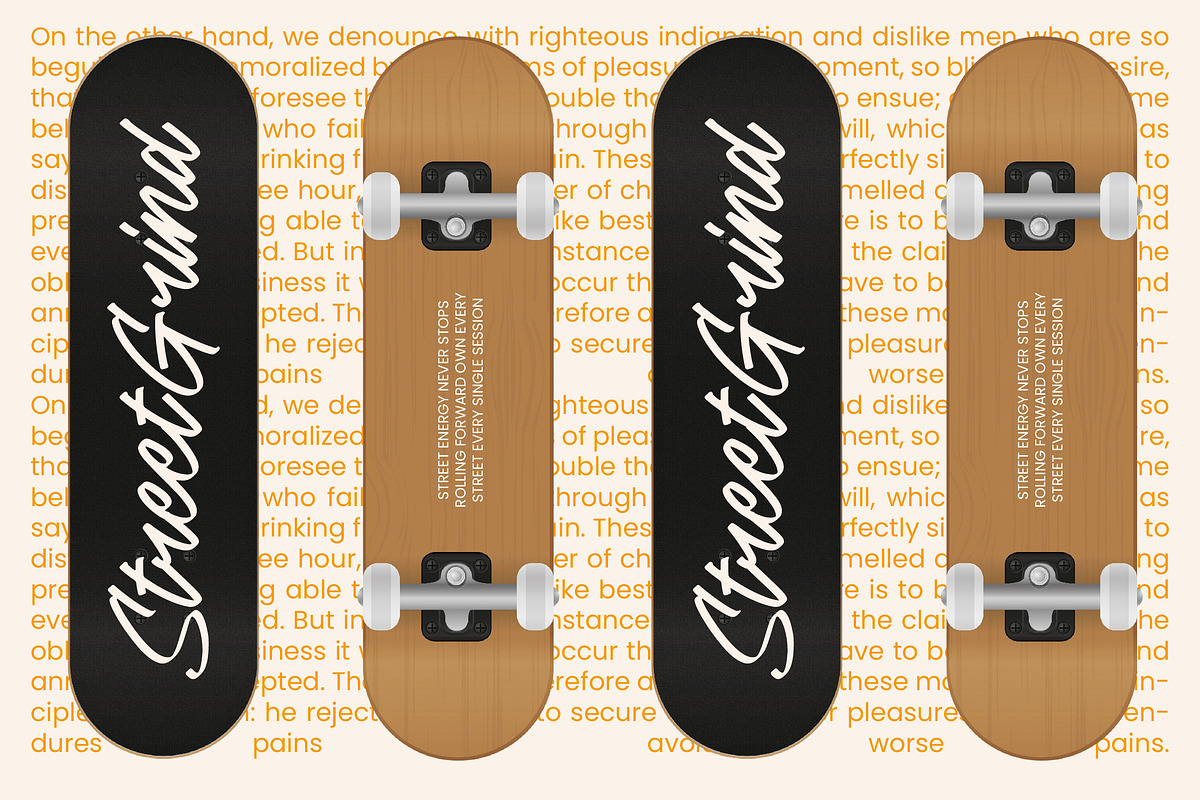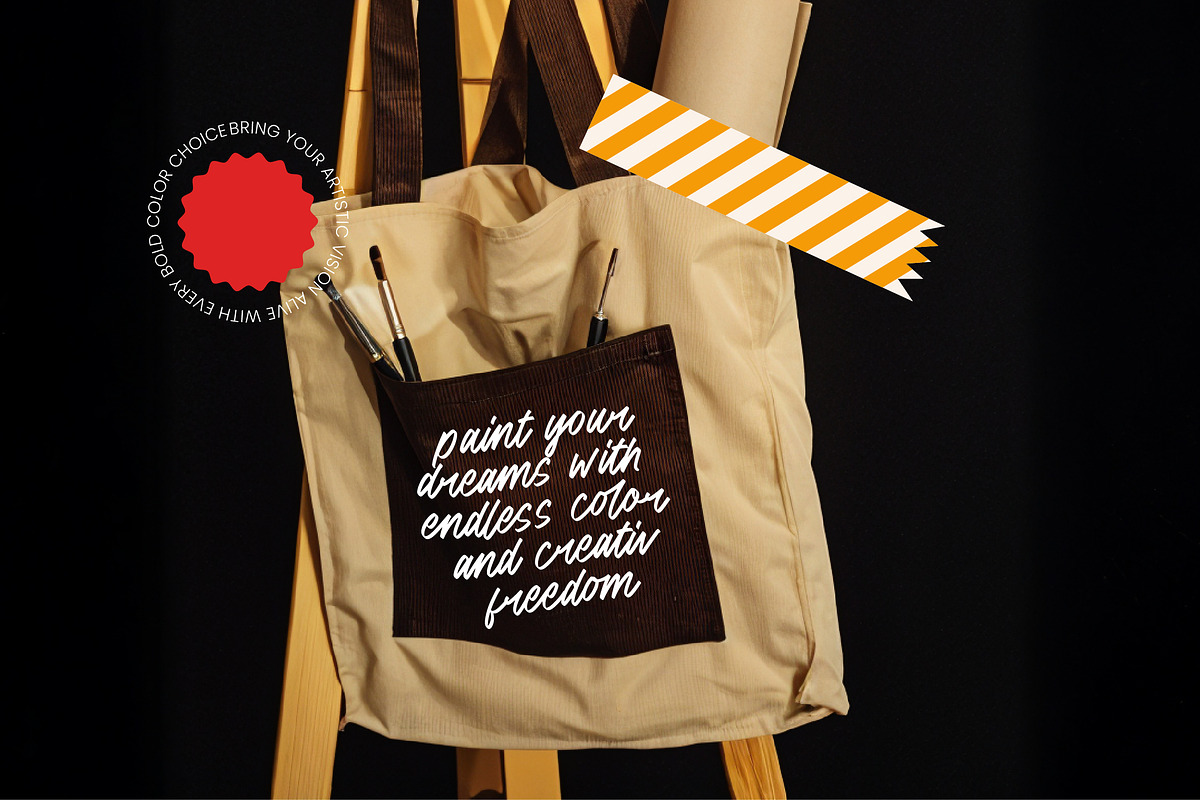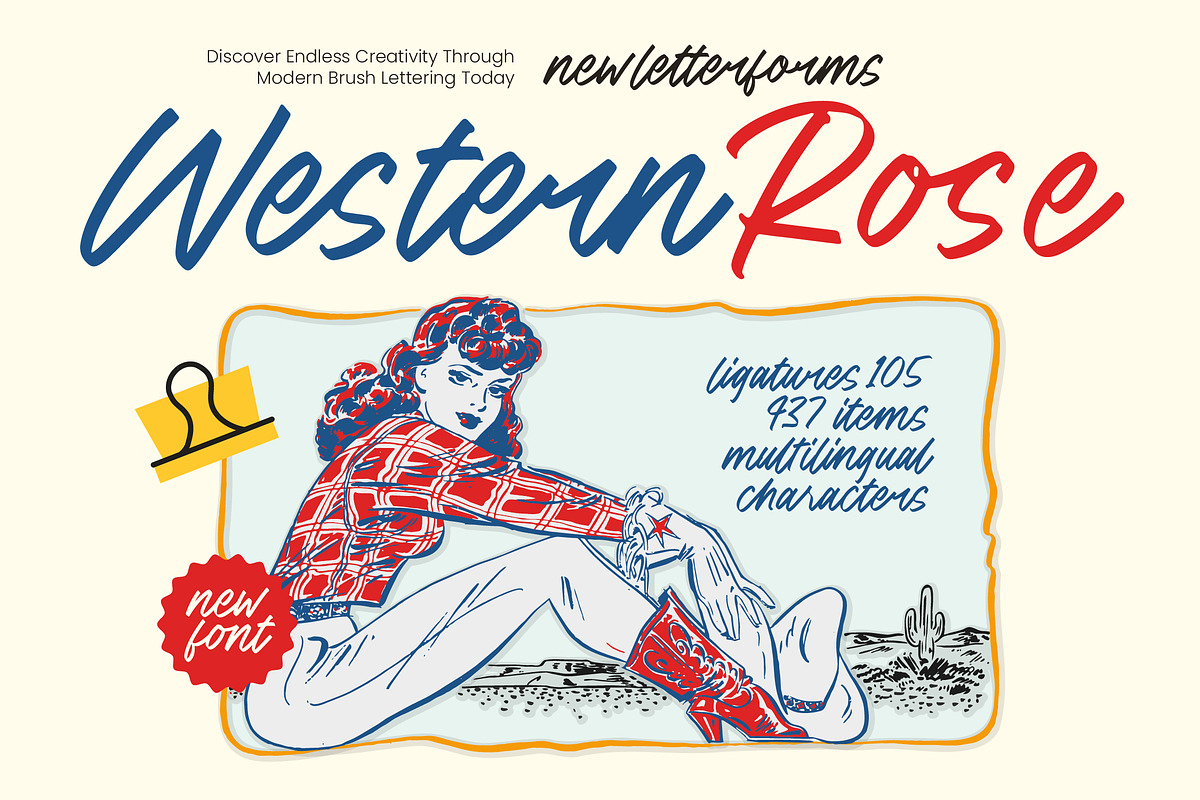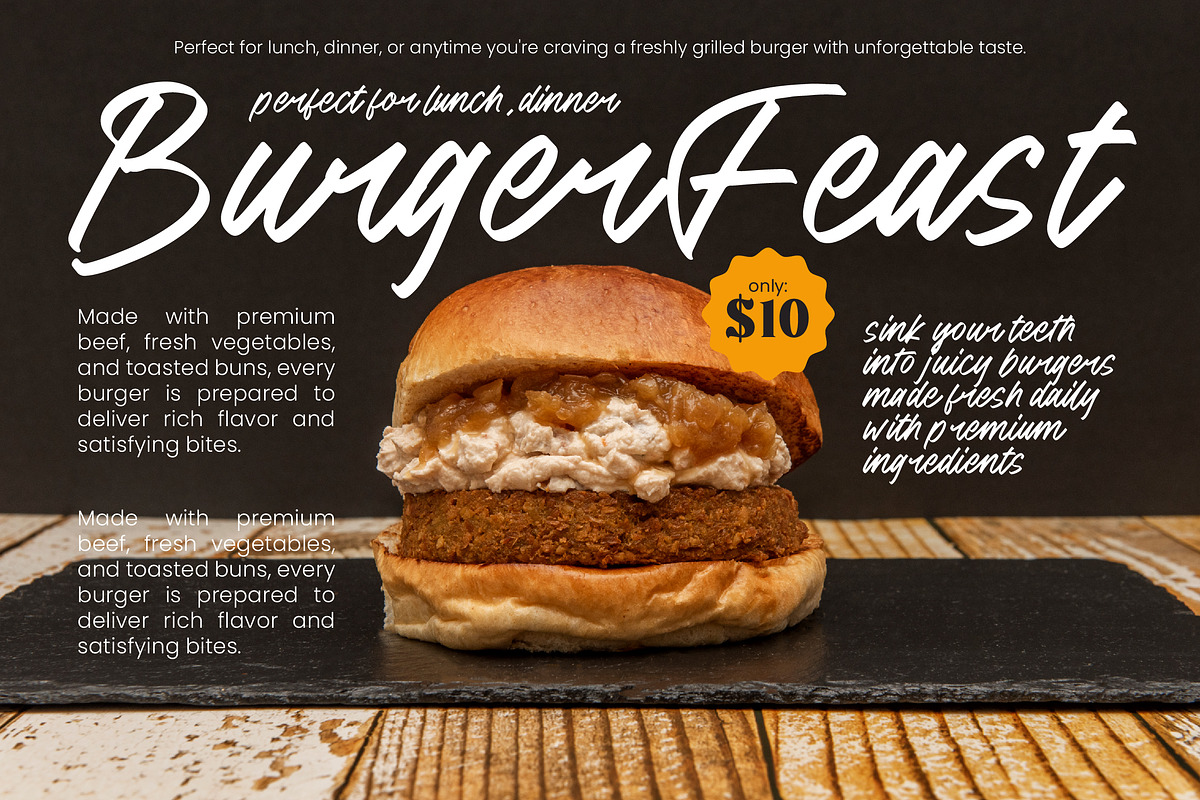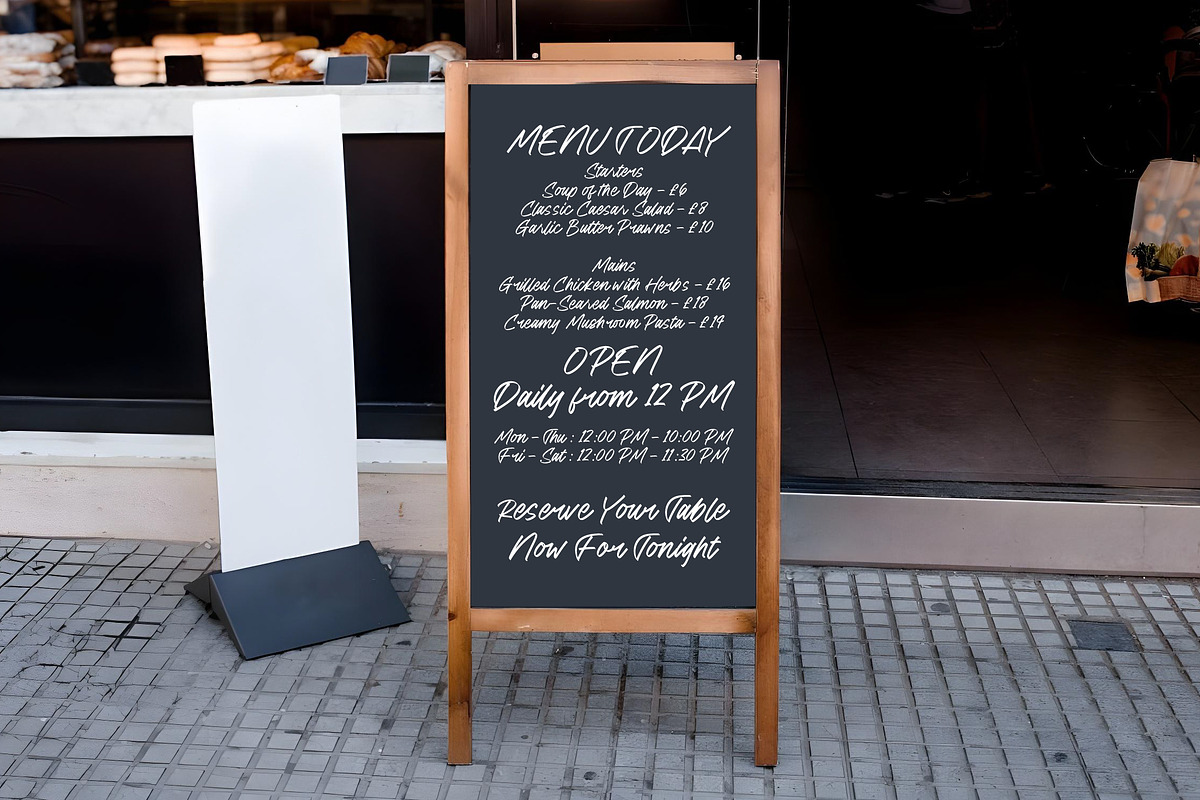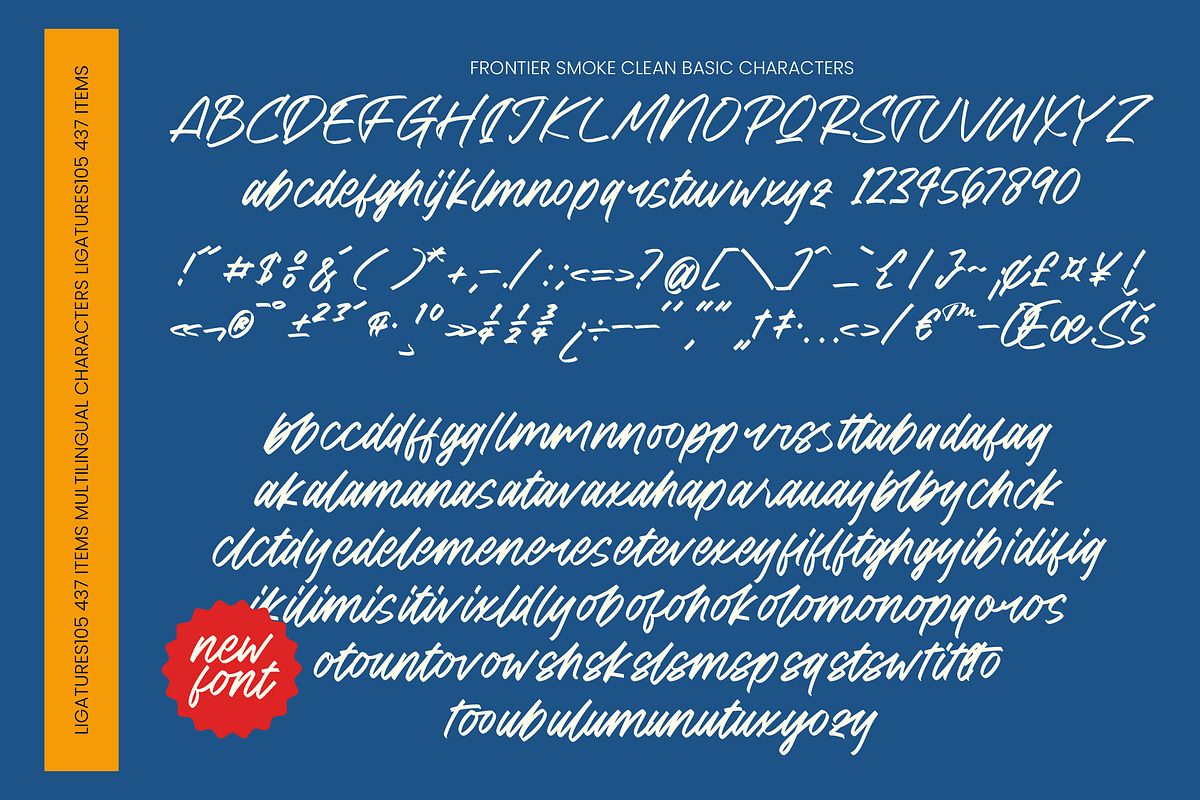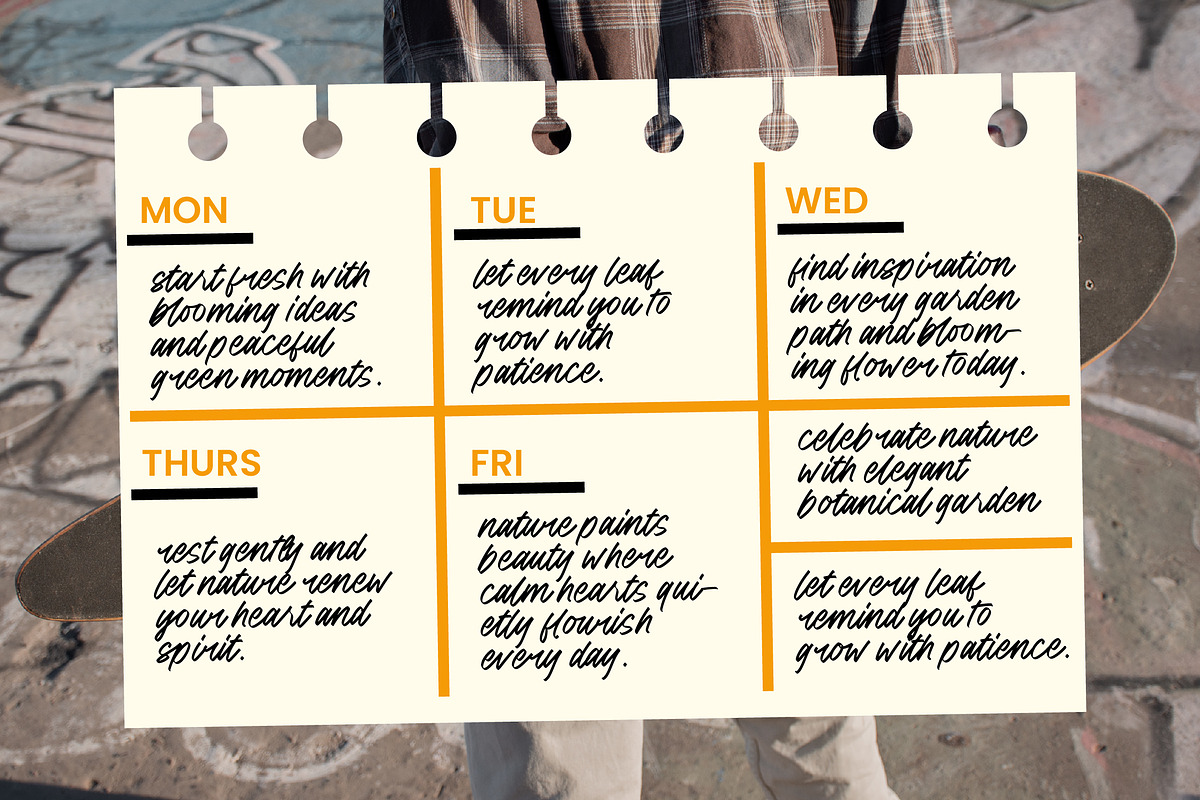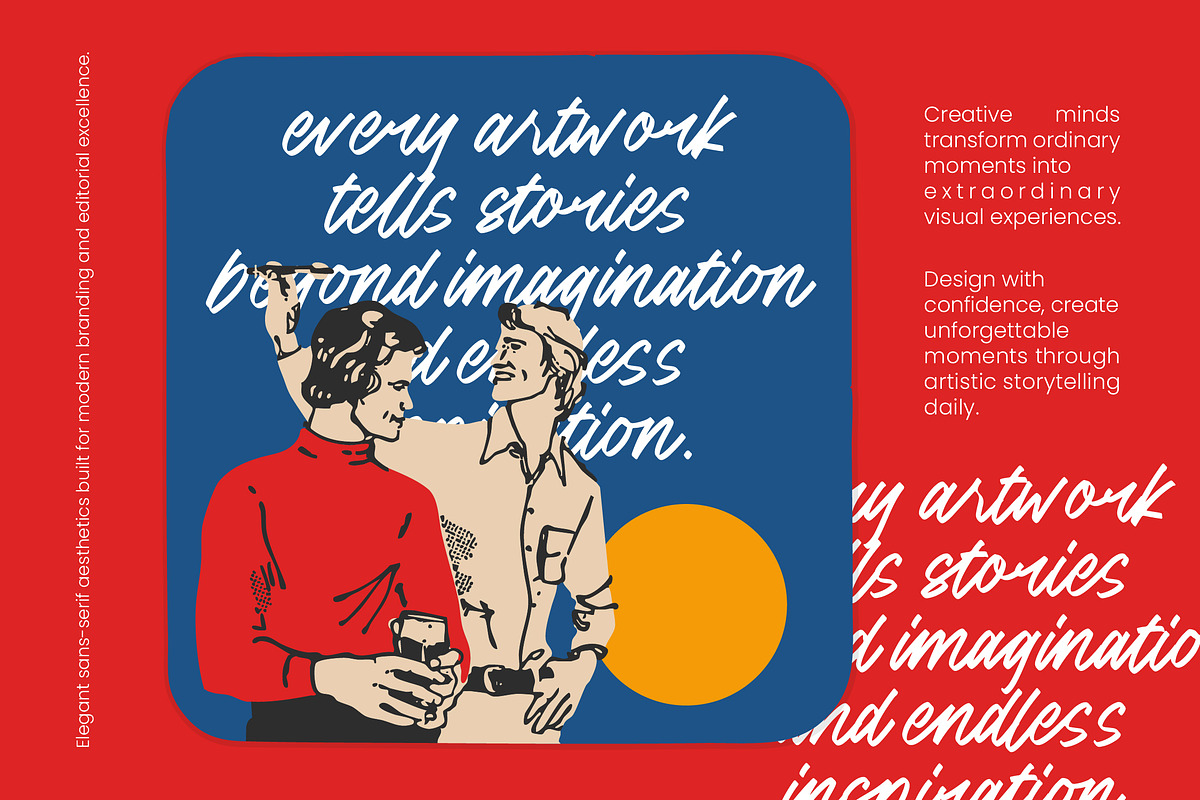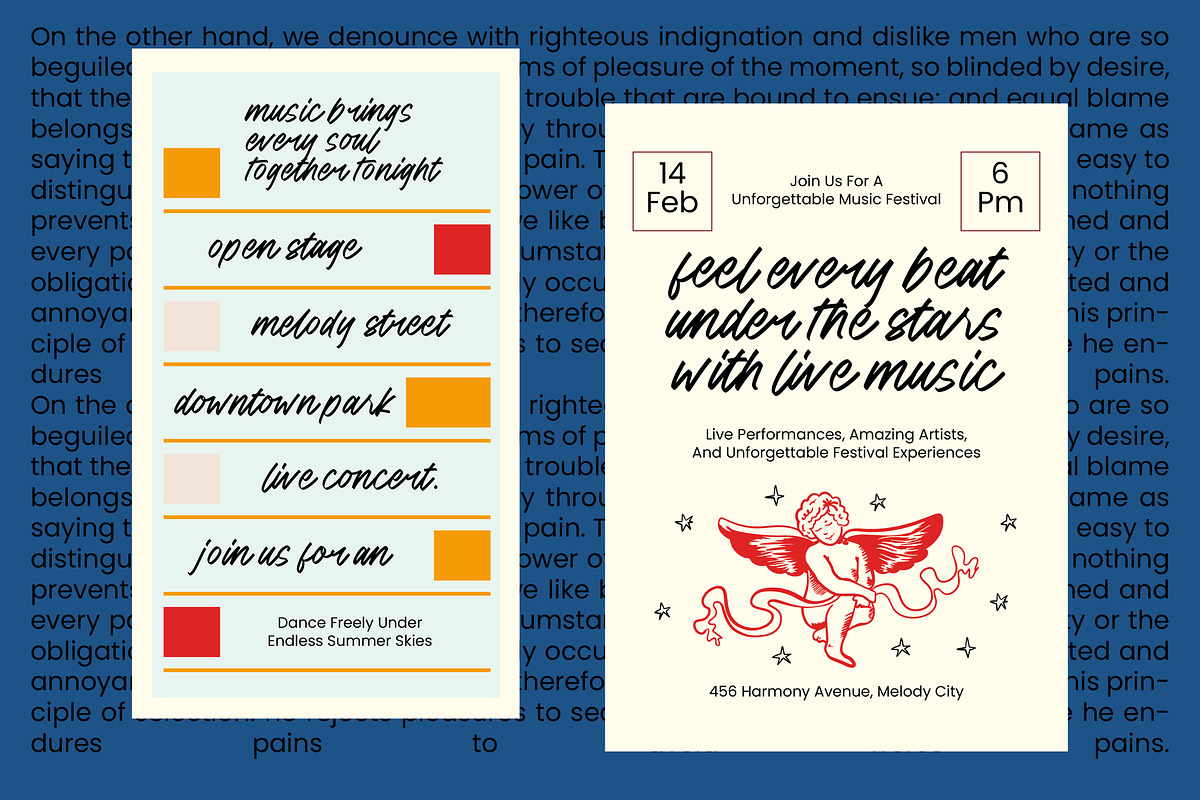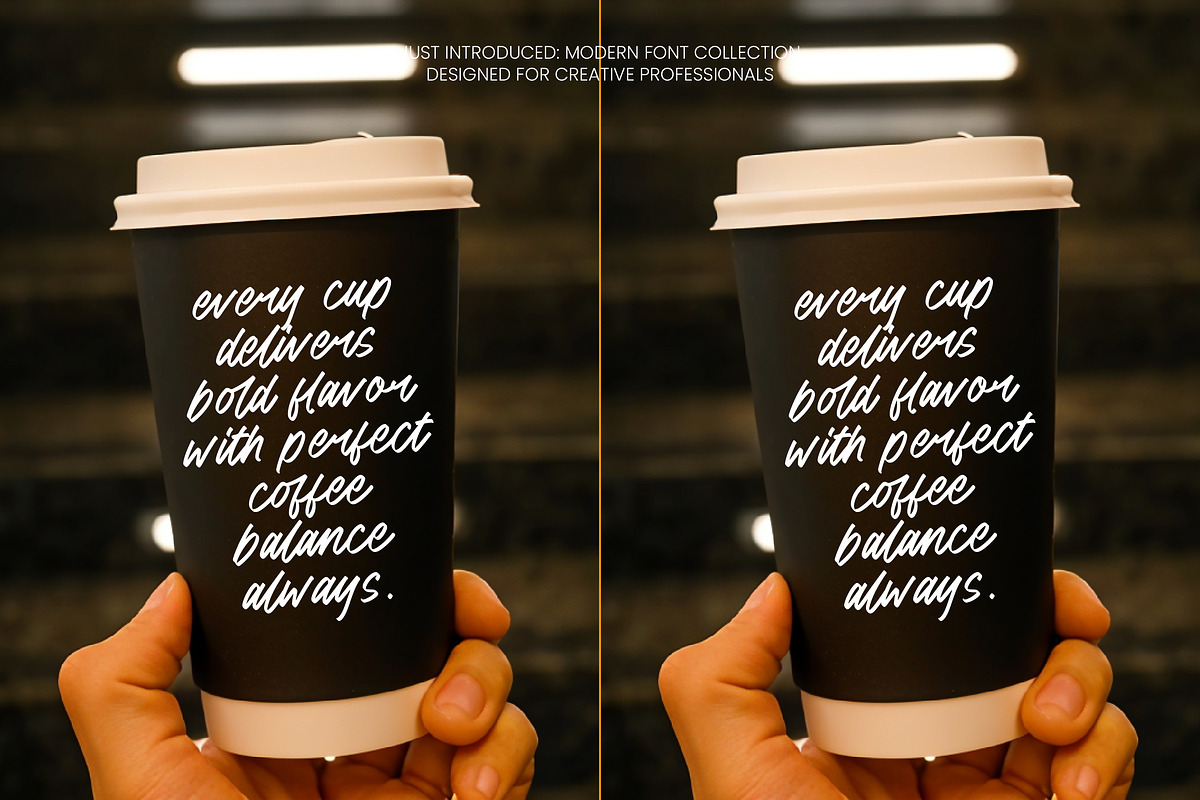
Western Rose Modern Brush
Western Rose - Modern Brush , Capturing the raw energy of authentic hand-lettering, Western Rose - Modern Brush offers a bold, expressive aesthetic that blends traditional artistry with contemporary style. The textured, energetic strokes of Western Rose - Modern Brush create a profound sense of movement and unapologetic confidence, making it the premier choice for brands seeking a distinguished visual identity. With over 105 bespoke ligatures and a total of 437 items, this typeface ensures that every design feels custom-crafted and entirely original.
Precision meets artistic freedom in this masterfully developed typeface. Beyond its striking visual appeal, Western Rose - Modern Brush is engineered for high-performance workflows and sophisticated typographic layouts. With its extensive multilingual support, Western Rose - Modern Brush adapts seamlessly across global markets, making it incredibly versatile for international projects. This technical flexibility allows designers to maintain brand consistency while reaching a diverse, worldwide audience with ease and professional polish.
Elevate your creative projects with an ideal application tailored for maximum impact. Western Rose - Modern Brush is specifically perfect for luxury branding, vintage-inspired packaging, and high-end editorial design. Its rugged yet fluid nature makes it a versatile asset for apparel graphics, cinematic posters, and bold advertising campaigns that require a modern-rustic aesthetic. Whether used for a statement logo or large-scale signage, it commands attention and communicates premium quality.